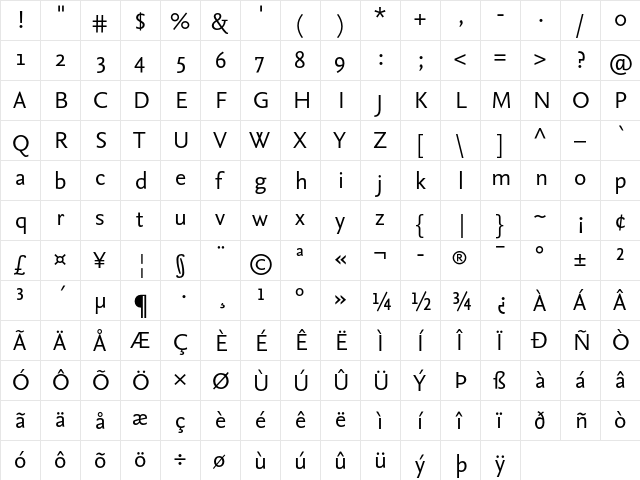
NexusSans-Regular Font Preview
NexusSans-Regular Regular
Design Context for NexusSans-Regular Typeface
NexusSans-Regular takes a measured approach to typography — its balanced proportions and neutral character make it a reliable workhorse for both digital and print work.